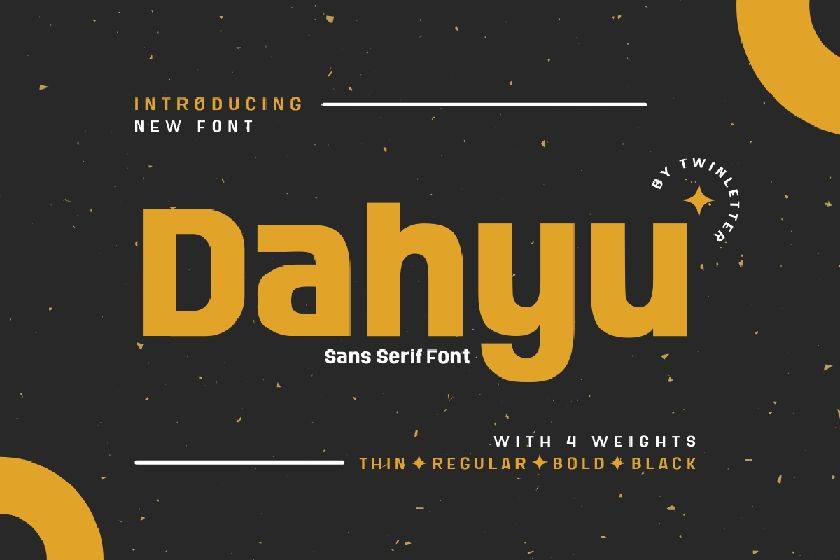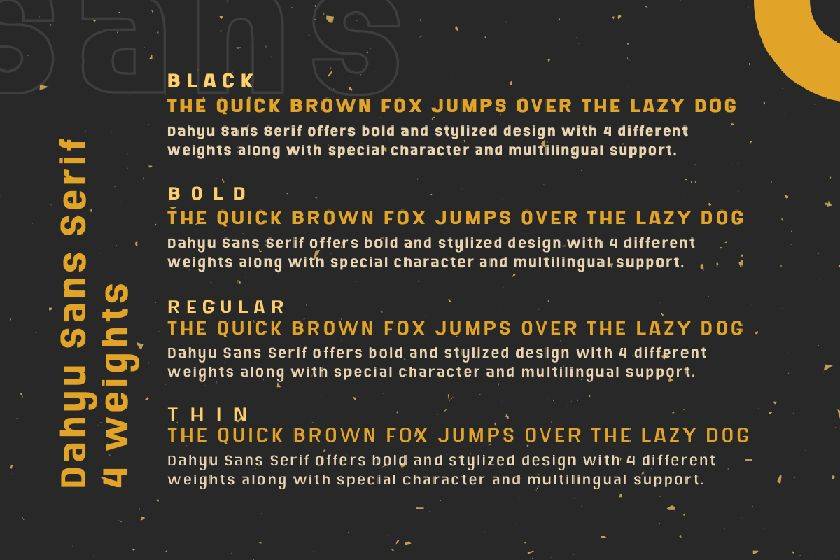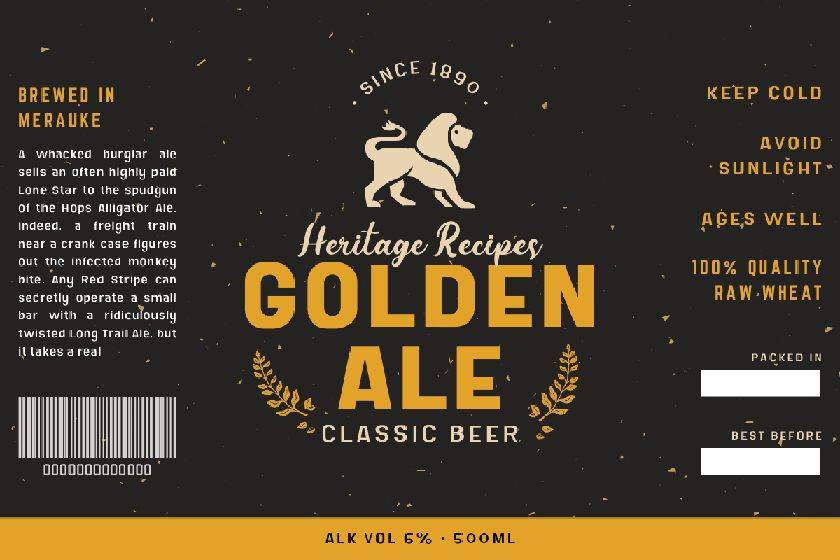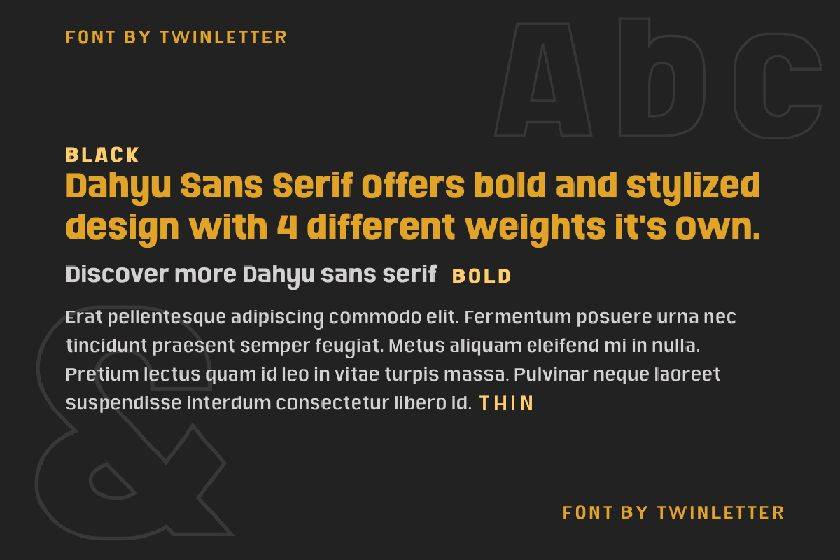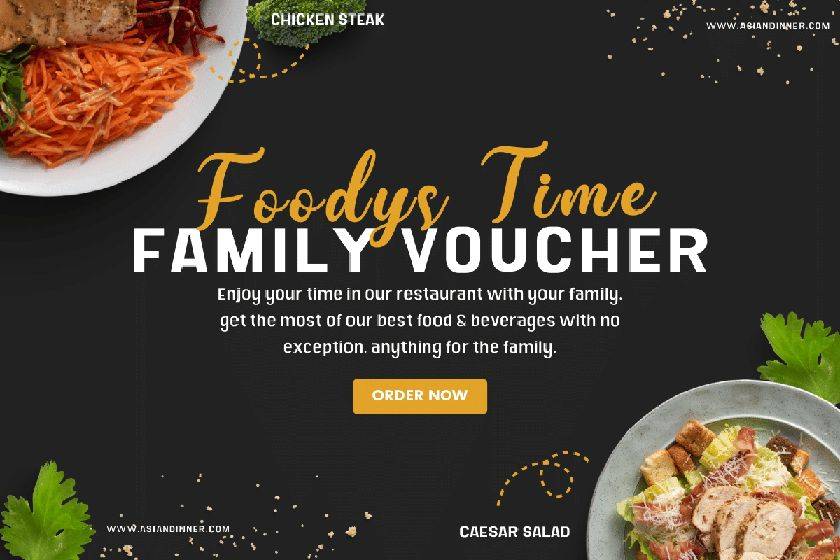
Dahyu is a bold, sans serif font with a modern and robust feel, featuring strong geometric shapes and clean lines. Its tall x-height and thick stroke weight make it highly legible and impactful, ideal for headlines, logos, and branding that seek a confident and contemporary look. This font works well in designs where clarity and strength are essential, such as editorial layouts, posters, and packaging.
Dahyu Font
About Dahyu Font
| Font family | Dahyu Font |
| Designer | hakim |